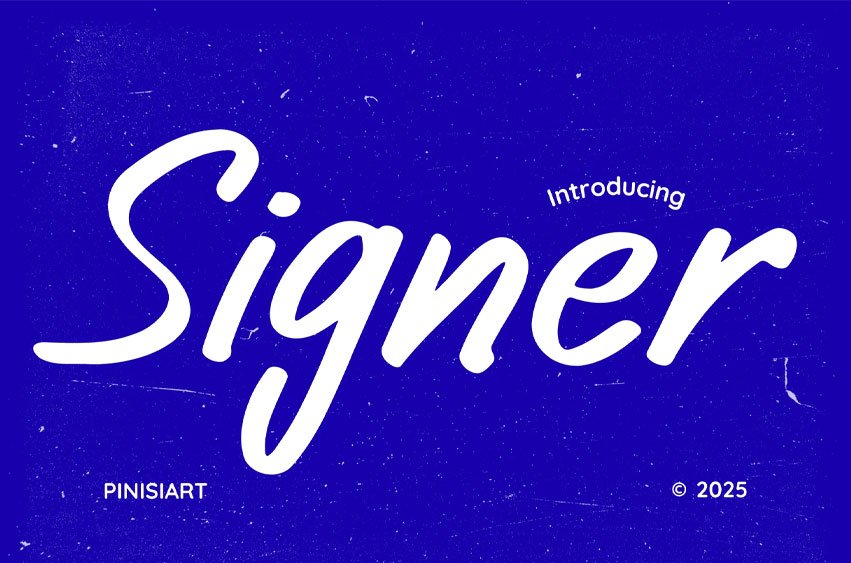
Signer Script Font is a handwritten script font with smooth curves, natural rhythm, and expressive strokes that give every letter a personal touch. Its flowing letterforms feel both casual and refined, making it an excellent choice for projects that need an approachable yet elegant vibe. With balanced proportions and a slightly bouncy baseline, Signer blends creativity and readability, ideal for modern branding, lifestyle visuals, and editorial designs.
Perfect for logos, Instagram posts, fashion branding, wedding invitations, and product packaging, Signer brings warmth and authenticity to every project. Its organic strokes and hand-drawn character structure create a friendly yet stylish tone, connecting brands with audiences who value creativity and elegance. Designers seeking a handwritten style that feels genuine and adaptable will find Signer the right choice to make their message stand out.
Key Features :
- Handwritten Personality – conveys warmth, style, and authenticity.
- Versatile Structure – works for branding, social media, posters, and invitations.
- Readable Flow – smooth curves maintain legibility in both headlines and body text.
- Stylish Impact – ideal for fashion, editorial, lifestyle, and creative marketing.